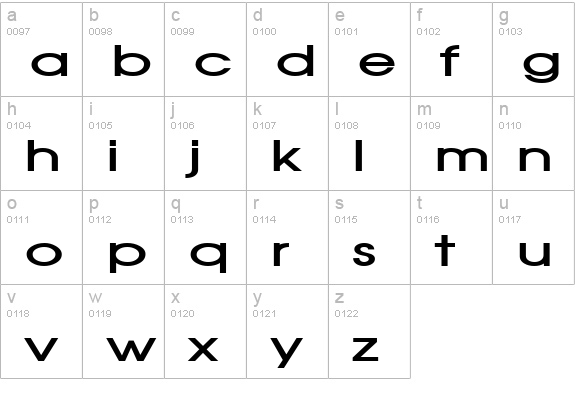
Atilla Extended Bold is a strong, high-contrast, extended-width variant in the Atilla typeface family \xE2\x80\x94 well suited to headlines, attention-grabbing titles, and strong calls-to-action.
Atilla Extended Bold font is a striking and impactful typeface that commands attention with its bold and modern design. With its strong and sturdy letterforms, Atilla Extended Bold is perfect for making a statement in headlines, posters, logos, and other design projects that require a bold touch. This font exudes confidence and strength, making it ideal for projects that need a bold and powerful aesthetic. The extended character width gives Atilla Extended Bold a unique and eye-catching look that sets it apart from other typefaces. The best part is that Atilla Extended Bold font is available for free download at FontsMarket.com. This means you can easily add this impressive font to your design arsenal without any cost. Don't miss out on the opportunity to enhance your projects with the impactful Atilla Extended Bold font today!